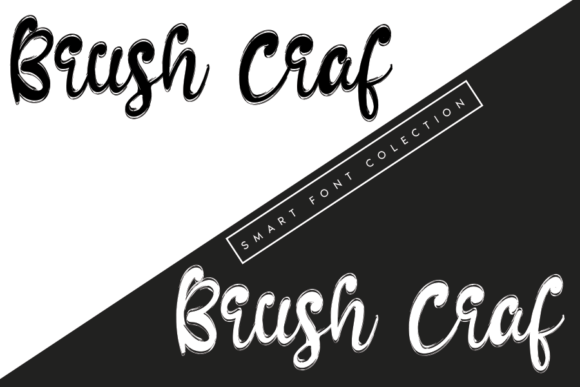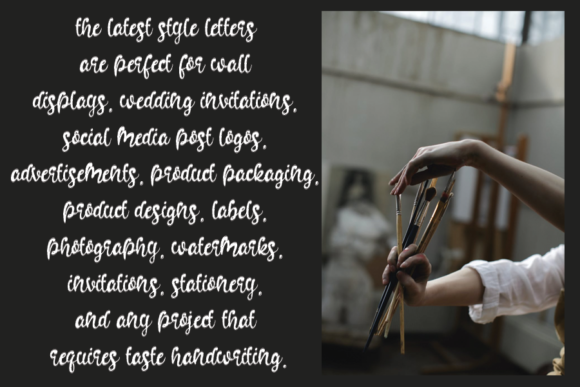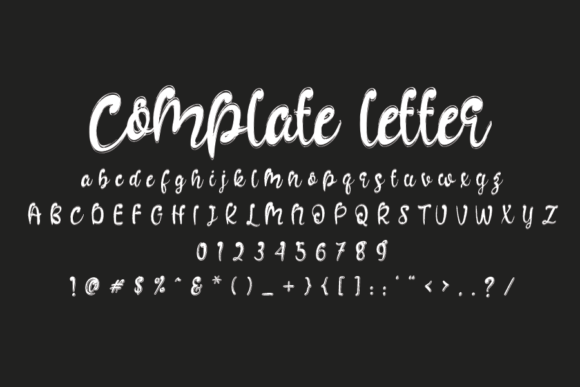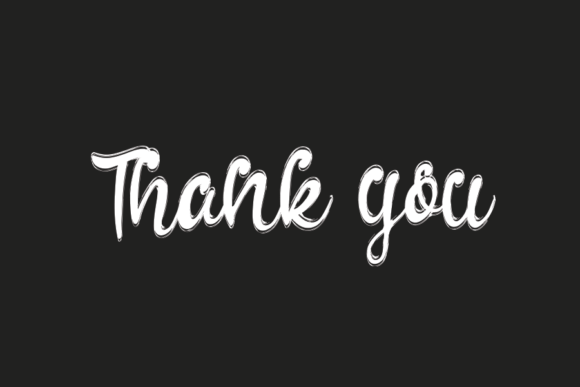
Introducing Brush Craf Font: Elevate Your Designs with a Personal Touch
In the world of design, fonts play a crucial role in conveying the tone and personality of a project. For designers and crafters looking to add a personal touch to their work, Brush Craf Font is an exciting new addition to the world of typography. This unique handwritten font, created with a brush pen, is designed to elevate a wide range of design projects to the highest level.
What is Brush Craf Font?
Brush Craf Font is a carefully crafted handwritten font that exudes a sense of elegance and sophistication. Created with a brush pen, this font boasts a distinctive, organic feel that sets it apart from more traditional fonts. Its unique texture and subtle imperfections give it a human touch, making it perfect for designers and crafters looking to add a personal element to their work.
What Can I Use Brush Craf Font For?
The versatility of Brush Craf Font is one of its standout features. This font can be used for a wide range of design projects, including:
- Branding: Create a lasting impression with a unique and memorable brand identity.
- Headings: Add a touch of elegance to your headings and titles.
- Wedding Designs: Make your wedding invitations, decorations, and other materials truly special.
- Invitations: Create beautiful and eye-catching invitations for any occasion.
- Signatures: Add a personal touch to your digital or handwritten signatures.
- Logos: Create a unique and memorable logo for your business or brand.
- Labels: Add a touch of personality to your product labels or packaging.
- And much more! The possibilities are endless with Brush Craf Font.
Why Choose Brush Craf Font?
With so many fonts available, why choose Brush Craf Font? Here are just a few reasons why designers and crafters are falling in love with this unique font:
- Unique and Exclusive: Brush Craf Font is a one-of-a-kind font that will set your designs apart from the rest.
- Elegant and Sophisticated: This font exudes a sense of elegance and sophistication, making it perfect for high-end designs.
- Easy to Read: Despite its unique texture, Brush Craf Font is easy to read and understand.
- Versatile: This font can be used for a wide range of design projects, from branding to wedding designs.
Tips for Using Brush Craf Font
To get the most out of Brush Craf Font, here are a few tips to keep in mind:
- Use it sparingly: Brush Craf Font is a statement font, so use it sparingly to make a lasting impression.
- Experiment with colors: This font looks great in a variety of colors, so don’t be afraid to experiment and find the perfect hue for your design.
- Pair it with other fonts: Brush Craf Font pairs well with a variety of other fonts, so try pairing it with a sans-serif font for a bold and modern look.
Brush Craf Font is a unique and exciting addition to the world of typography. With its elegant and sophisticated feel, this font is perfect for designers and crafters looking to add a personal touch to their work. Whether you’re creating branding materials, wedding designs, or simply want to add a touch of personality to your digital or handwritten signatures, Brush Craf Font is the perfect choice. So why wait? Try Brush Craf Font today and elevate your designs to the highest level!